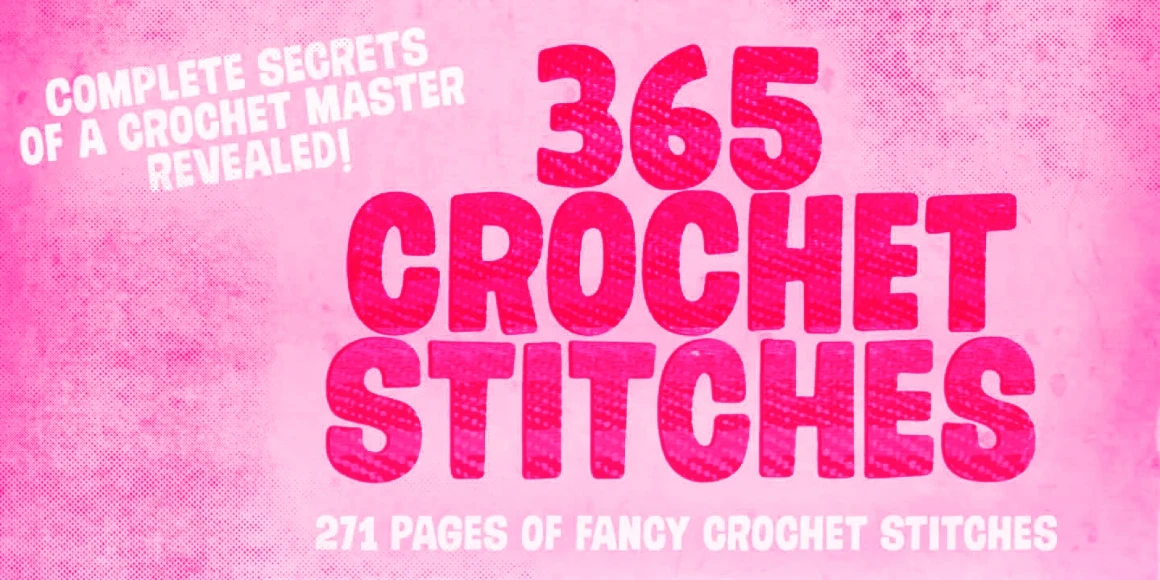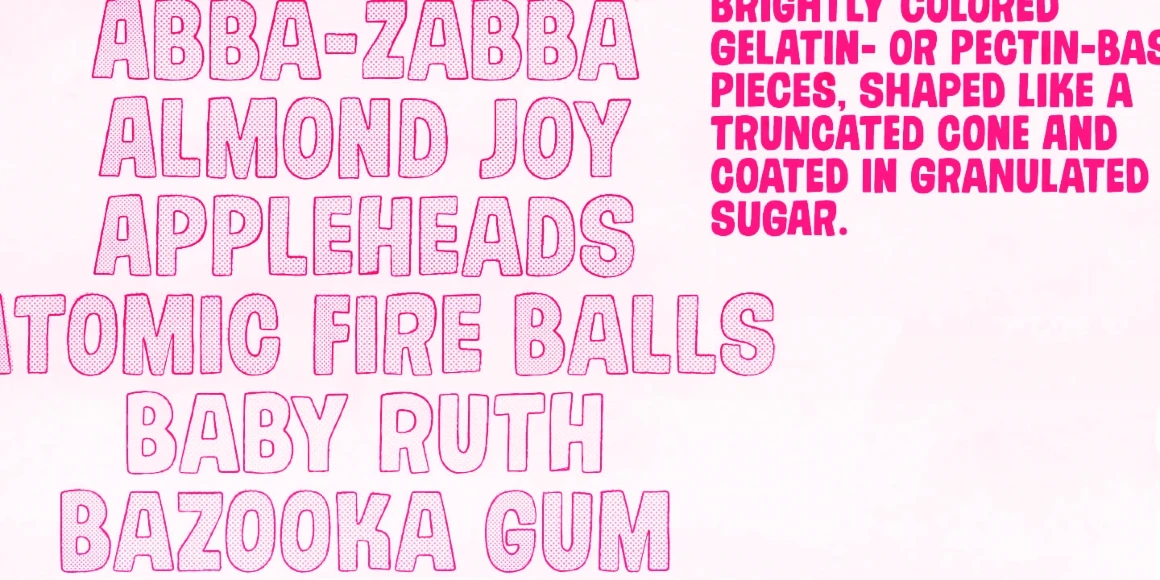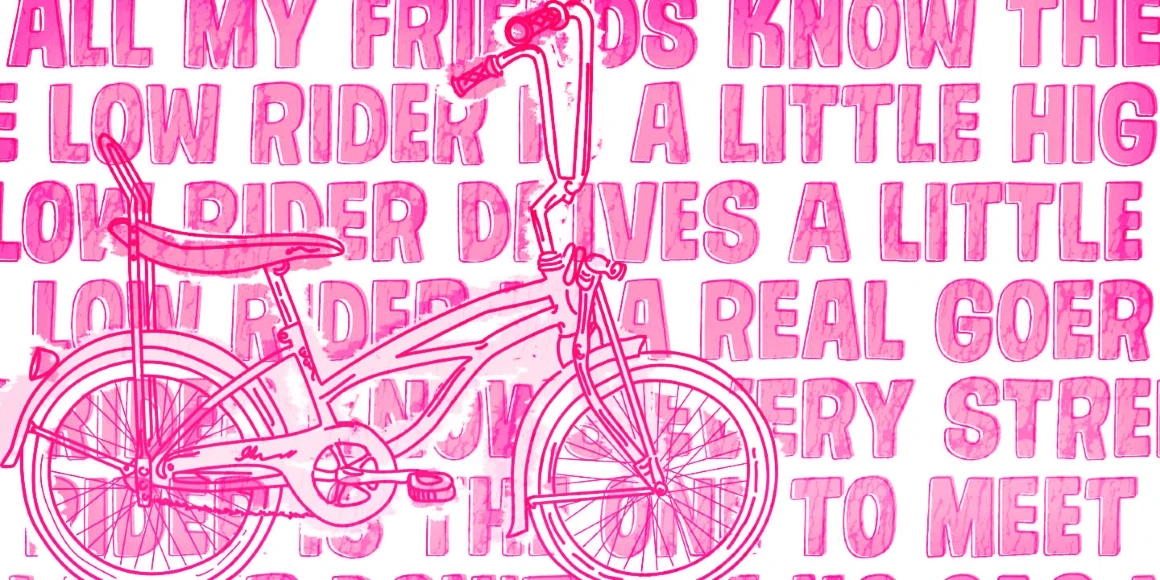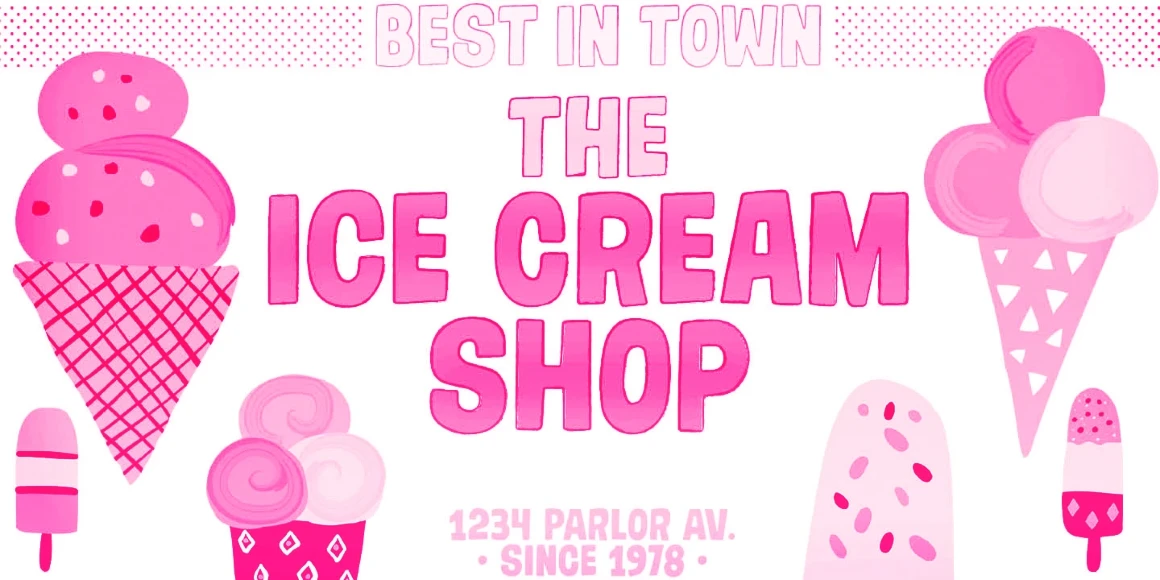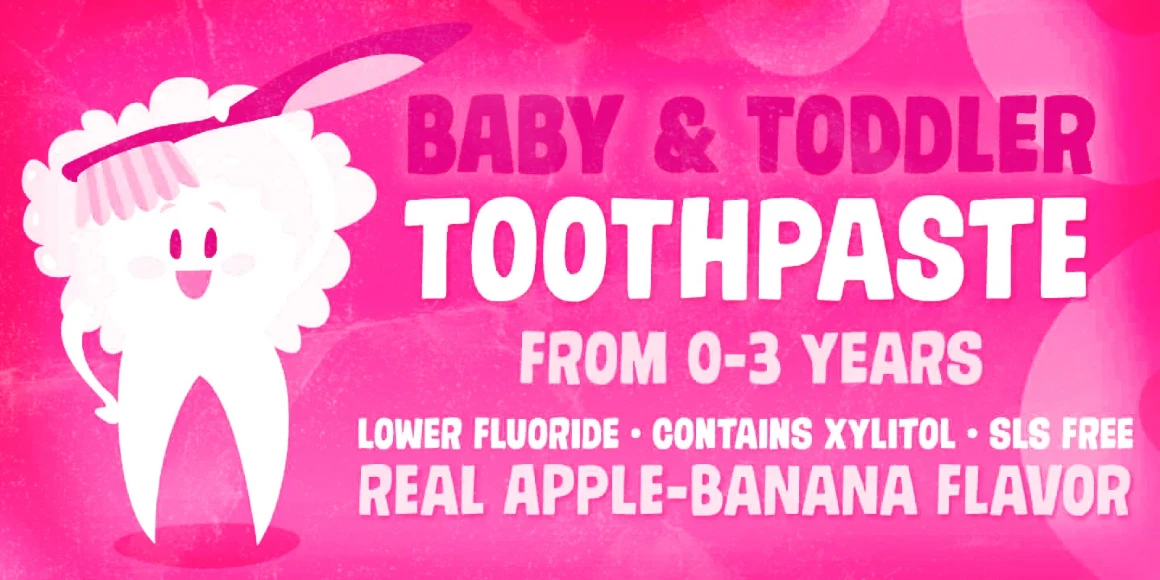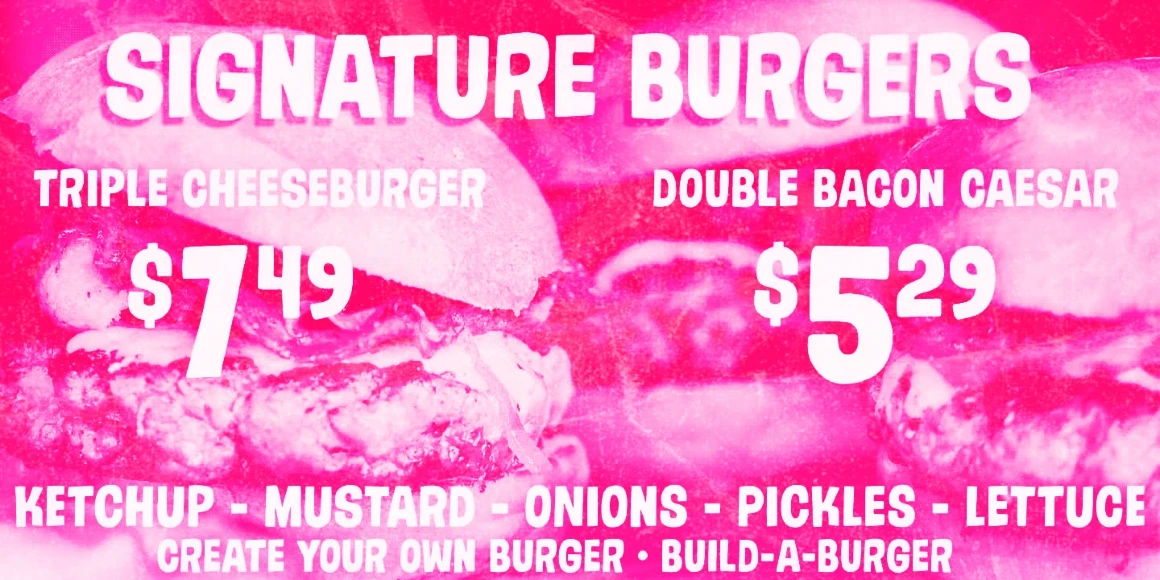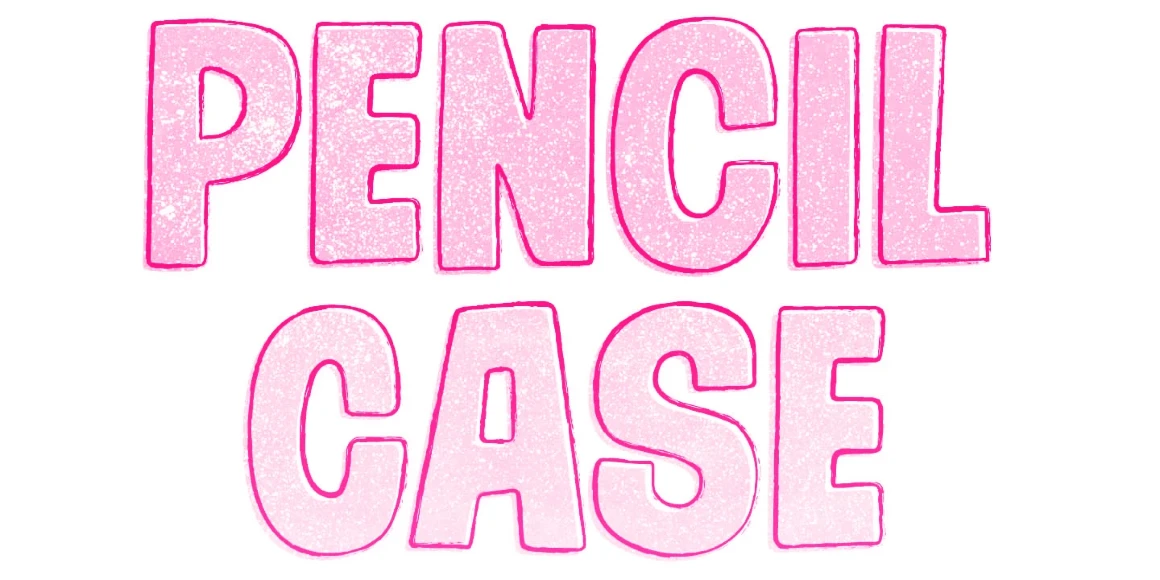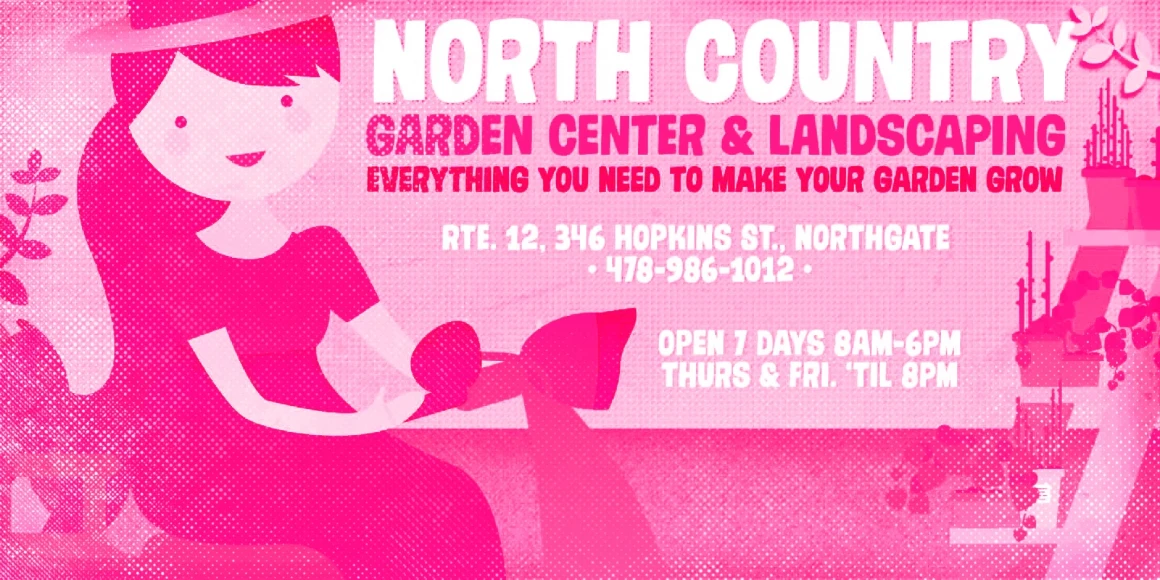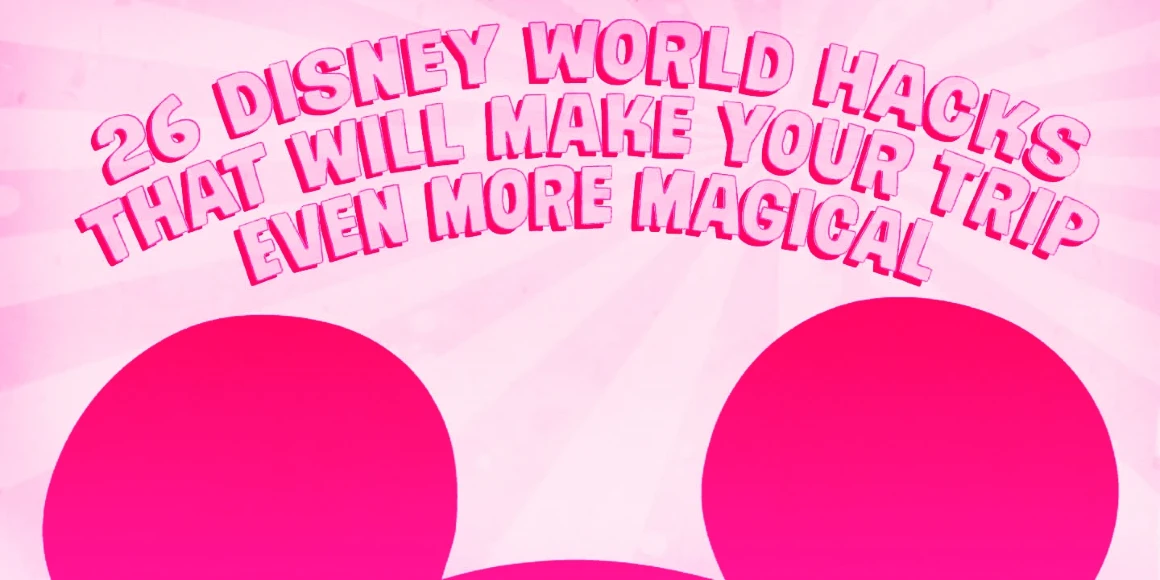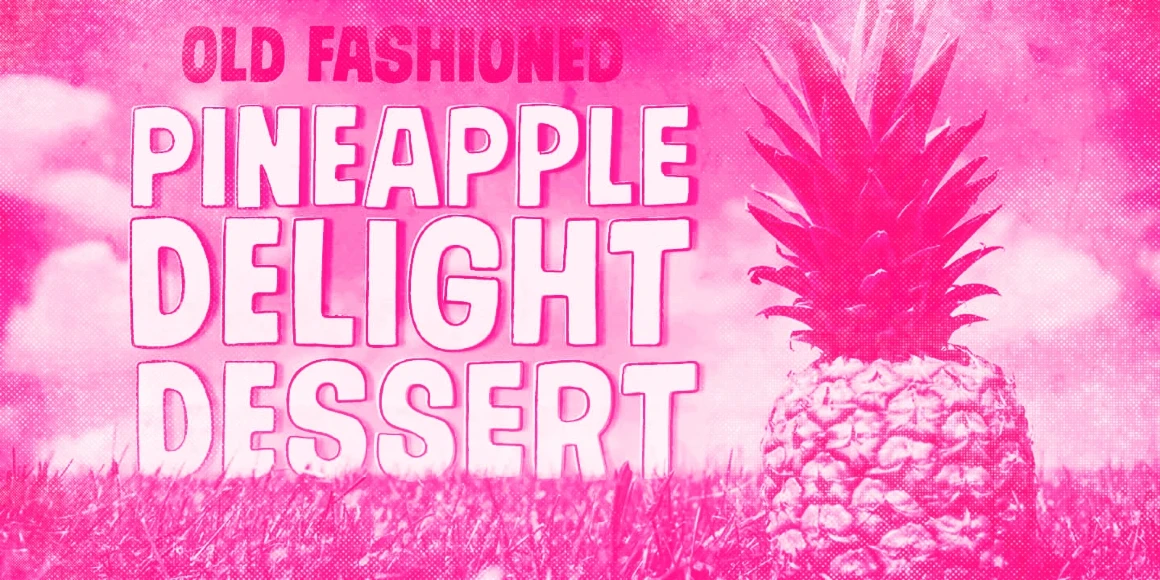
Gumdrop
Gumdrop Color
Gumdrop Color Pastel
Gumdrop Halftone
Gumdrop Outline
Gumdrop Regular
Gumdrop is a soft sans. Stylish, original, and a little bit retro. It’s an all-caps font with two options for each letter and number for added spontaneity. The regular cut is already quite versatile, and the family also includes a fun halftone cut and a pencil-like outlined version. Is this just another damn handsome font? Hell, yes. Keep it handy!